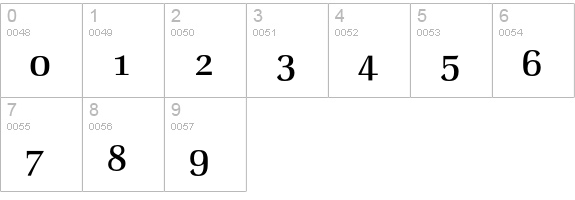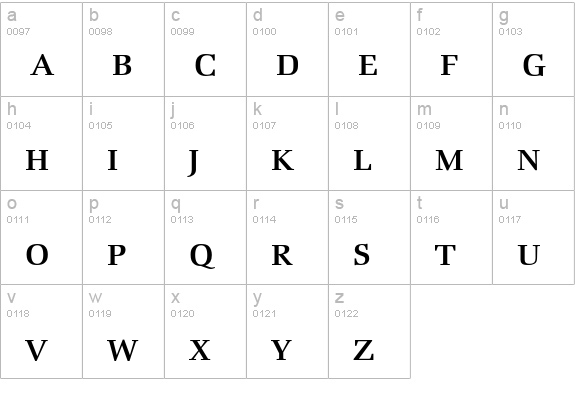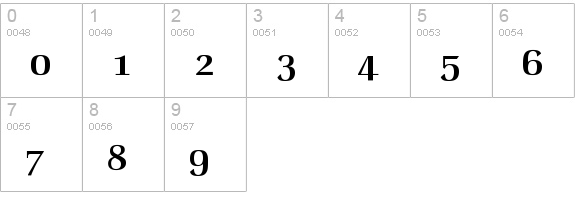
MarconiSCEF-Book Font Details
MarconiSCEF-Book is a comfortable, highly readable variant in the MarconiSCEF typeface family \xE2\x80\x94 well suited to long-form body text, articles, and editorial content.
Introducing MarconiSCEF-Book, a versatile and elegant font that is sure to make a statement in any design project. With its clean lines and classic proportions, this font exudes a sense of sophistication and professionalism. Whether you're designing a logo, creating a website, or crafting a print layout, MarconiSCEF-Book will add a touch of refinement to your work. But what sets MarconiSCEF-Book apart is not just its aesthetic appeal - it's also free! That's right, this stunning font is freely available to download at FontsMarket.com. Whether you're a professional designer or just starting out, you can now access this high-quality font without breaking the bank. MarconiSCEF-Book offers a wide range of weights and styles, from light to bold, allowing you to customize your designs to perfection. Its extensive character set includes uppercase and lowercase letters, numerals, punctuation marks, and special symbols, providing you with all the tools you need to bring your creative visions to life. The versatility of MarconiSCEF-Book makes it suitable for a variety of design projects. Whether you're working on a brand identity, a magazine layout, or a wedding invitation, this font will effortlessly elevate your design and make it stand out from the crowd. So why wait? Download MarconiSCEF-Book for free at FontsMarket.com and unlock a world of possibilities for your design projects. With its timeless elegance and effortless style, this font is sure to become a staple in your design toolkit. Embrace the freedom of creativity with MarconiSCEF-Book and take your designs to new heights.